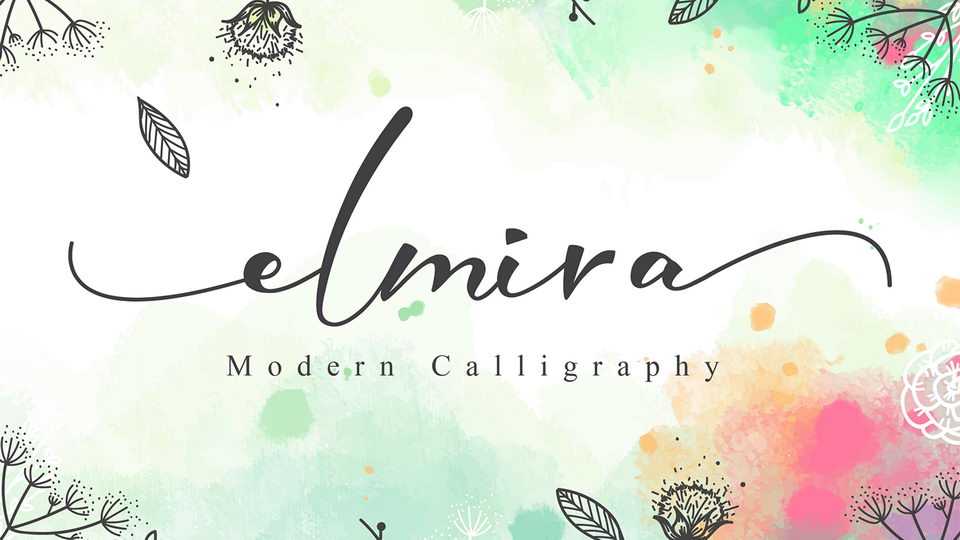
Download Elmira font, a stylish modern calligraphy scriptwith a fresh and contemporary twist. Get inspired by its unique charm! Elmira font is ideal for fashion logos, branding, invitations, stationary, wedding designs, social media posts
Designer: Nissa Studio